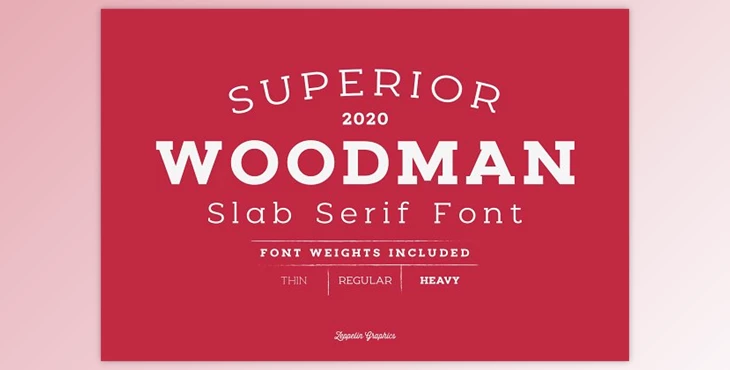
Woodman Slab Serif Font 4541069: Woodman has three weights - heavy, thin, and regular. Each weight is available in four styles: regular round, rounded, press, and grunge. The heavier version comes with five styles: grunge outline. We hope you use this font in your work and enjoy playing with it!
Some great features of Woodman Slab Serif Font:
- Three weights for fonts
- Thin, Regular, and Heavy
- 13 fonts are in total
- Lowercase and uppercase
- Punctuation and numerals
- Ligatures and alternates
- Multilingual support